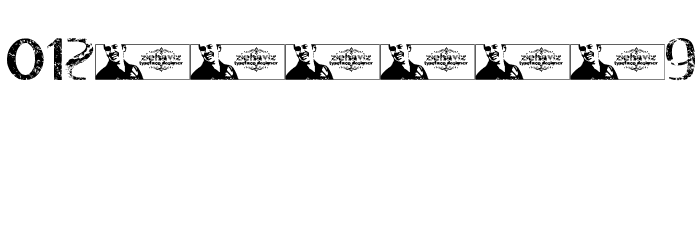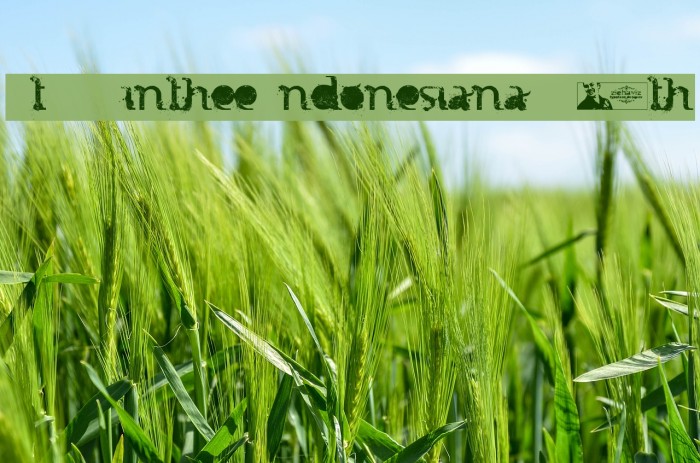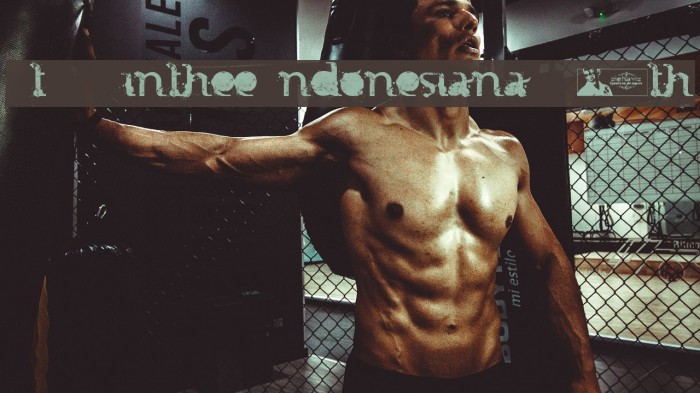
FTF Minthee Indonesiana!" 3th Font
FTF Minthee Indonesiana!" 3th Description
This font features a distressed, grunge style with a textured appearance that gives it a worn, vintage look. The characters are bold and have irregular edges, creating a sense of movement and energy. The uppercase and lowercase letters maintain a consistent style, with the uppercase being slightly larger and more pronounced. The numbers follow the same design, ensuring uniformity across all characters. The special characters are also included, matching the overall aesthetic. This font is ideal for projects that require a rugged, edgy feel.
| Overall Style | Vintage, Grunge |
| Proposed Projects | Ideal for album covers, posters, branding for edgy or alternative products, and any design needing a vintage or grunge aesthetic. |